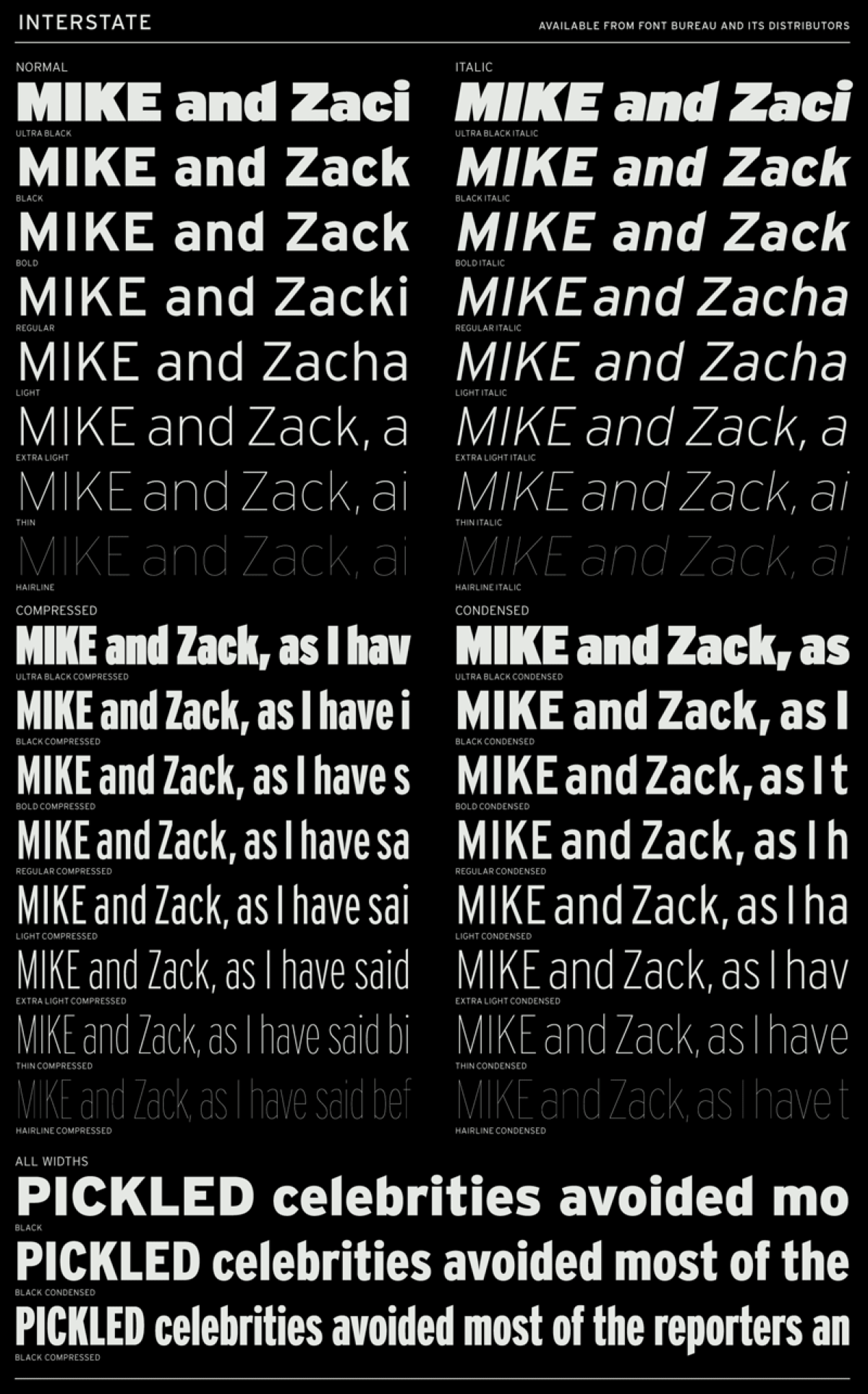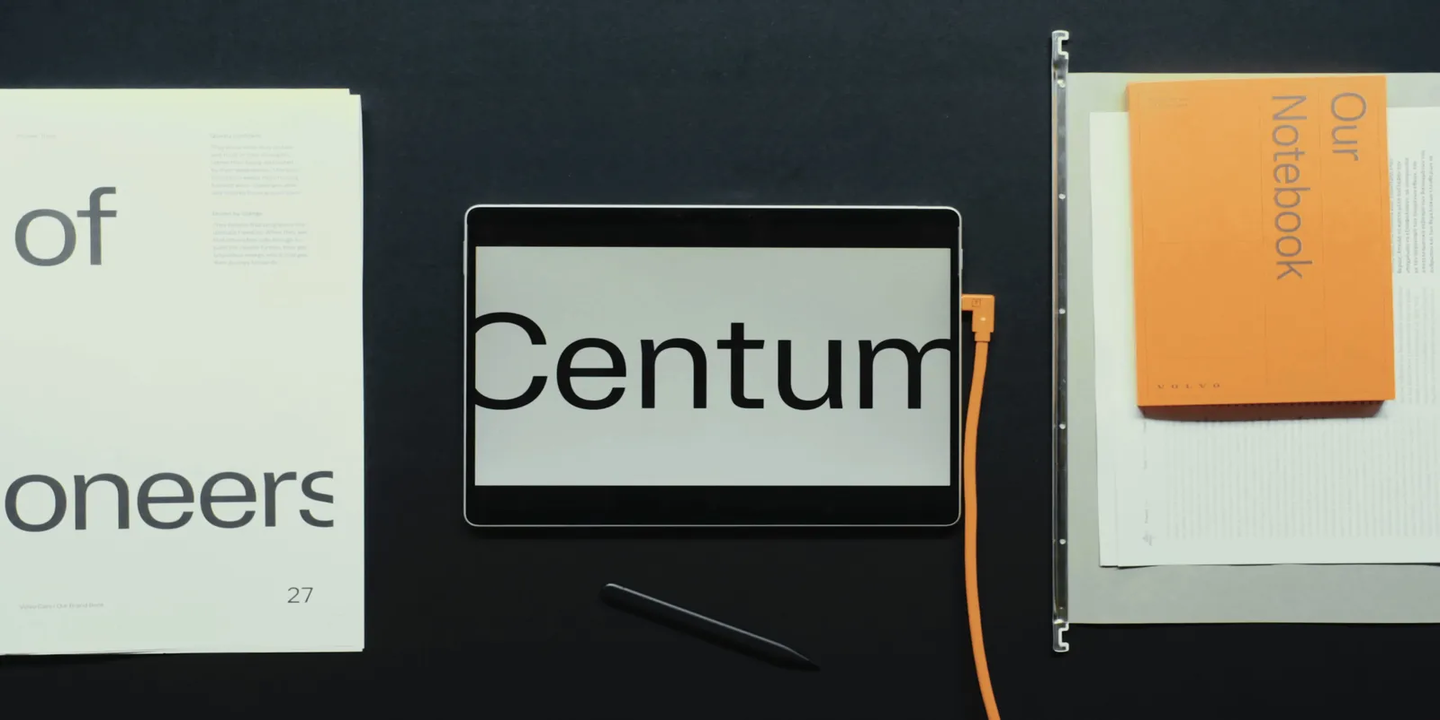
Interstate vs Volvo Centum
Interstate and Volvo Centum are both sans-serif typefaces sharing a readable foundation. The two share 69% design similarity overall. Compare which suits your Signage project.
| Feature | Interstate | Volvo Centum |
| Source | Font Bureau | Dalton Maag |
Recommended: Interstate
- Suited for Editorial and Headlines
Consider: Volvo Centum
- neo-grotesque, minimal design character
- Suited for Automotive and Ui